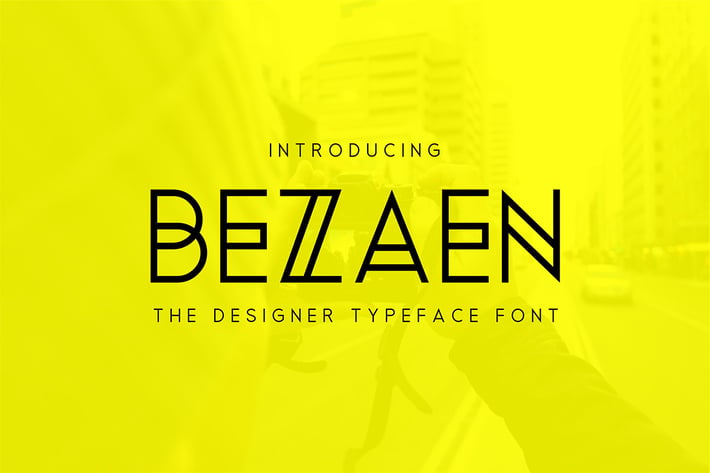
Bezaen Typeface
Introducing Beazaen – A perfect, clean and minimalist and awesome character! It’s perfect for magazine layouts, invitations, headers, or even large-scale artwork.